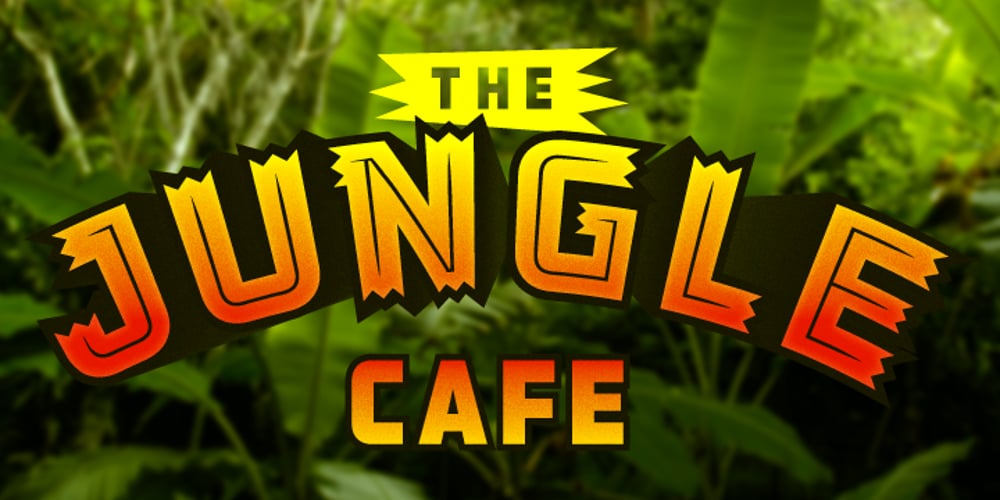
Volcano Font Family was designed by Alex Sheldon and published by Match & Kerosene. Volcano contains 4 styles and family package options. Volcano is titling family of four is broken down into a gothic and island style. The island style features a “toothed” look that gives it a very unique look that can be used for a variation of project styles: Jungle, Island, Cruise, Vacation, Tiki, Retro, and Comicbook. The gothic style features a more industrial look and was inspired by gaspipe lettering styles. Each style features a different inline font file that can be layered over to produce striking headlines.